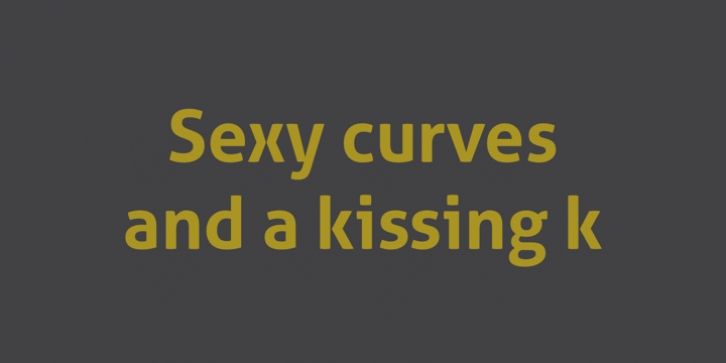
Publisher: Dalton Maag
The Aller font family is an exceptional design that satisfies a wide range of uses - from a very personal wedding invitation to corporate mass-communication. Its tone of voice is soft and warm, with the softness emphasized even further by the design’s convex stroke terminals. But at the same time the design of each letterform is clean and without fuss, making Aller a contemporary design truly fit for the 21st century. Three Roman styles ranging from light to bold, with matching italics, ensure the font family is versatile.
The Typographic edition of the Aller font family has a complete Latin A Extended character set with additional OpenType features and small caps. A free Standard Edition is also available.